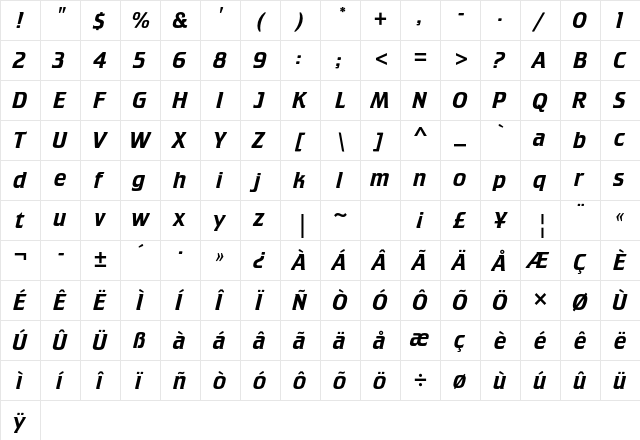
Crillee Italic Std Regular
| Designer | Dick Jones |
Design Context for Crillee Italic Std Typeface
Crillee Italic Std is a composed and adaptable typeface that performs quietly and consistently across a wide range of design contexts. Its italic angle brings a sense of urgency and motion to the letterforms.
Pro Tip: Use Crillee Italic Std for emphasis, pull quotes, and subheadings where its slanted energy can add rhythm to the layout.